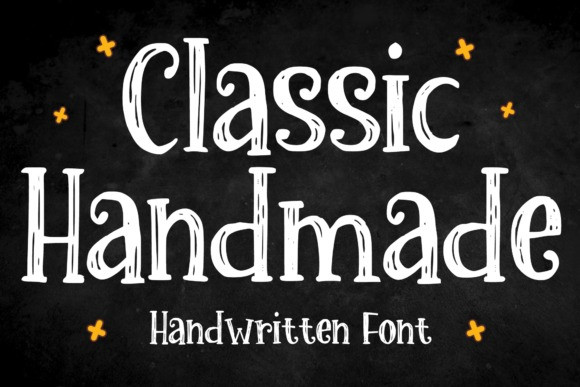
Classic Handmade Font
Classic Handmade Font an engaging retro display font that draws inspiration from the playful energy of vintage comics, cartoons, and classic lettering. Unleashing this font into your design projects is sure to elevate them to remarkable heights. Perfectly tailored for various creative exploits such as snappy sticker designs, eye-catching t-shirt prints, stunning logo concepts, magnetizing magazine or book covers, and lively comic or cartoon illustrations. Classic Handmade is the missing ingredient to infuse your designs with an irresistibly cool flair!